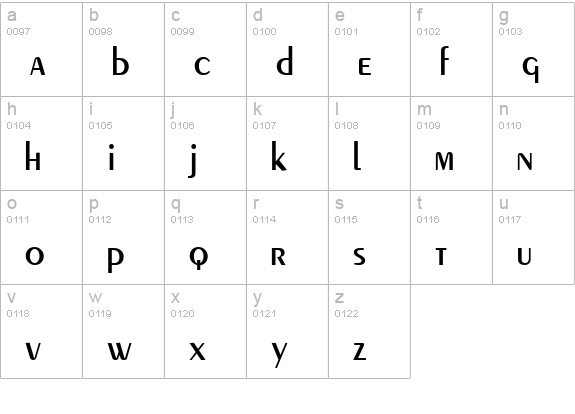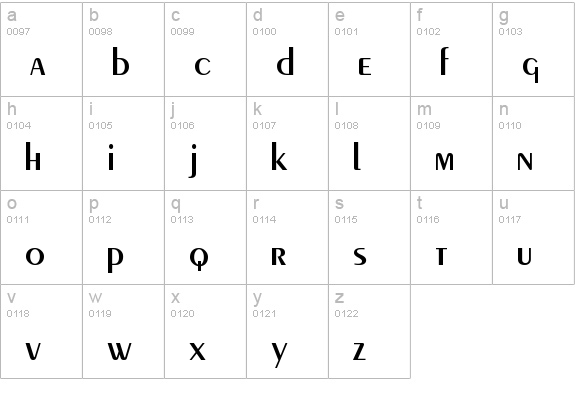
QTPeignoir Regular Font Details
QTPeignoir Regular is the standard, neutral variant in the QTPeignoir typeface family \xE2\x80\x94 well suited to general body text, paragraphs, and standard typographic work.
QTPeignoir Regular font is a stunning and versatile typeface that exudes elegance and sophistication. With its clean lines and graceful curves, it adds a touch of refinement to any design project. This font is perfect for creating eye-catching headlines, impressive logos, and stylish branding materials. QTPeignoir Regular font is meticulously crafted with attention to detail, resulting in a well-balanced and visually pleasing typeface. Its classic yet modern design makes it suitable for a wide range of applications, from print materials to digital designs. One of the best things about QTPeignoir Regular font is that it is freely available to download at FontsMarket.com. This means that you can easily access and use this exceptional font without any cost. Whether you are a professional designer or a hobbyist, having access to high-quality fonts like QTPeignoir Regular can greatly enhance your creative projects. So, why wait? Enhance your designs with the timeless beauty of QTPeignoir Regular font. Download it for free at FontsMarket.com and let your creativity shine.